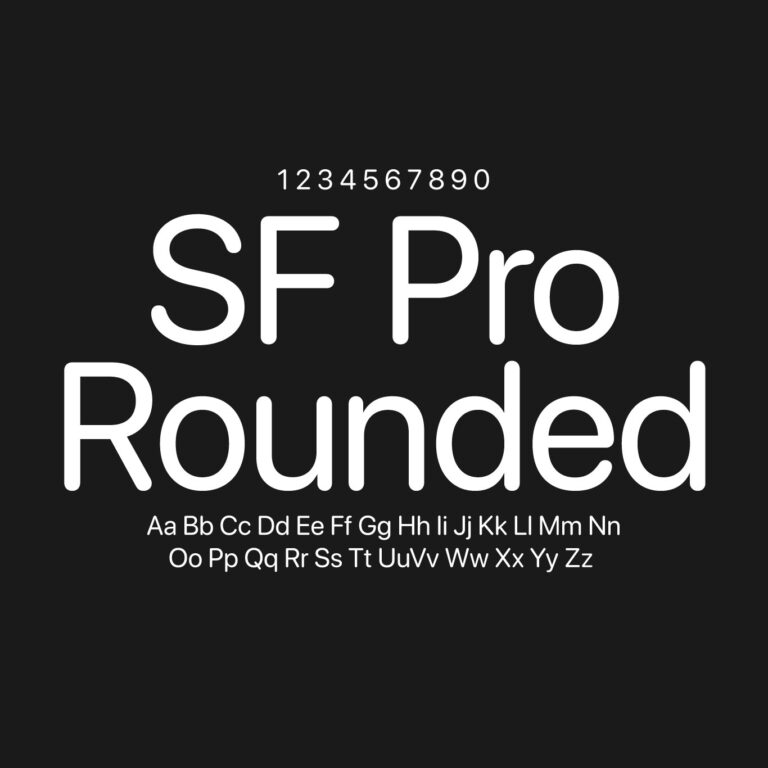
Download SF Pro Rounded font family in OTF format. This package includes 9 weights ranging from Ultralight to Black. SF Pro Rounded retains the clear proportions and interface-focused structure of Apple’s SF Pro family while replacing sharp stroke endings with softer, rounded forms.
SF Pro Rounded follows the same practical foundation as the standard SF Pro family but gives the letterforms a noticeably softer voice. Rounded terminals reduce the severity of horizontal and vertical stroke endings, while the underlying proportions remain compact enough for interface text, labels and controls.
The result feels friendlier than the standard SF Pro without becoming excessively playful. Regular and Medium work well for body text and interface labels, while Semibold and Bold provide clear emphasis for buttons, navigation and headings. Heavy and Black create stronger display typography without losing the family’s rounded character.
SF Pro Rounded vs SF Pro
SF Pro uses straighter terminals and a more neutral appearance suited to general interface typography. SF Pro Rounded preserves a similar structure but softens the ends and corners of the letters, giving text a warmer and more approachable appearance.
The standard family is usually the more restrained option for dense documents, menus and professional interfaces. The rounded version is useful when the visual language includes curved buttons, cards, icons or friendly product illustrations and the typography needs to reflect the same softer geometry.
Using the Different Weights
Ultralight, Thin and Light are best suited to large titles or spacious presentation layouts where the rounded details remain visible. Regular and Medium provide the most practical balance for paragraphs, labels and interface text. Semibold and Bold work well for navigation, buttons and section headings, while Heavy and Black are intended for short display text that needs stronger visual impact.
Best Uses for SF Pro Rounded
SF Pro Rounded is particularly effective in mobile app concepts, onboarding screens, dashboard cards, notification layouts, presentation titles and product interfaces built around curved components. It can also be used for children’s products, health and wellness layouts, friendly technology branding and other designs that need a clean sans serif with less rigid edges.